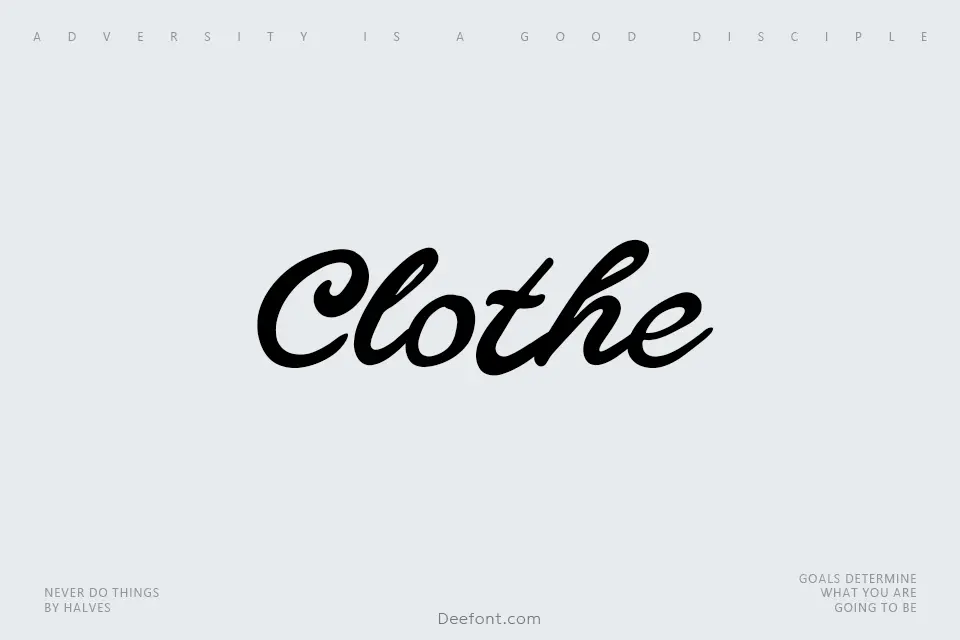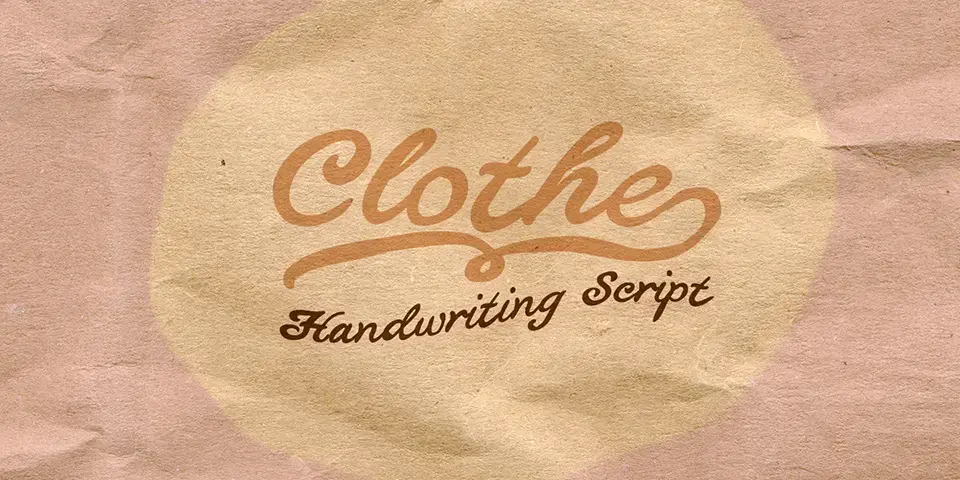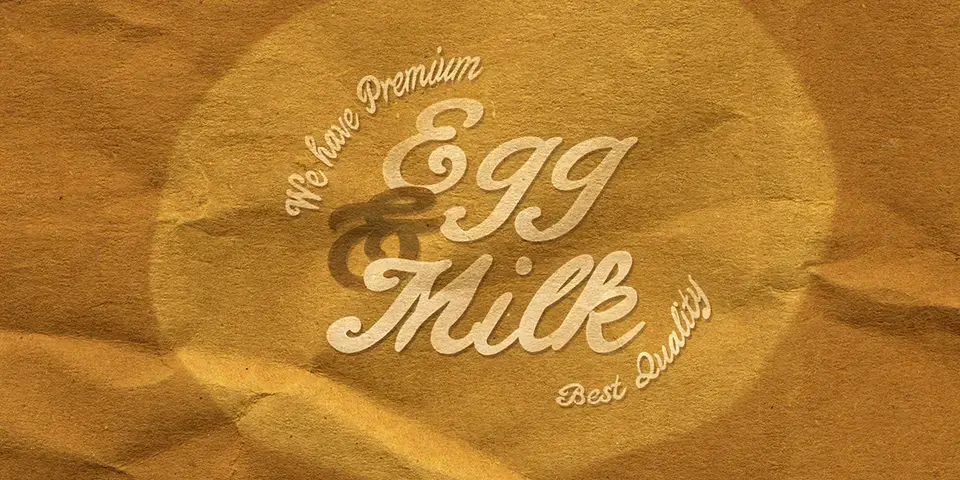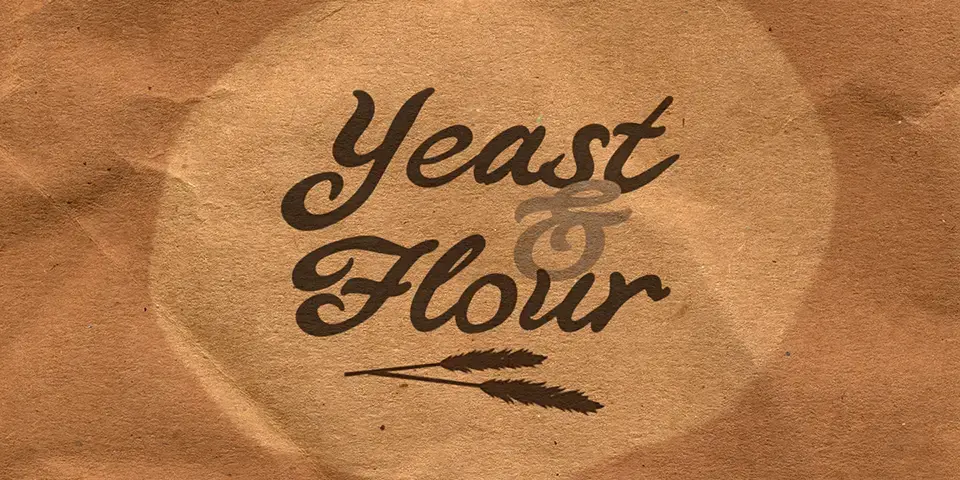
Clothe Font
Clothe is a distinctive vintage handwriting typeface that combines authentic calligraphic artistry with modern design versatility. Featuring elegant, flowing letterforms with genuine handmade character, the font exhibits natural stroke variation and sophisticated pen dynamics that evoke classical calligraphy tradition. The typeface includes extensive OpenType features, swash alternates accessible via brackets [ ] and { }, and comprehensive multilingual support encompassing hundreds of languages. With 373 glyphs and refined letterforms, Clothe delivers authentic vintage charm ideal for greeting cards, wedding invitations, decorative headlines, vintage-themed branding, logos, poster design, and typographic display projects requiring handwritten elegance and nostalgic aesthetic appeal.